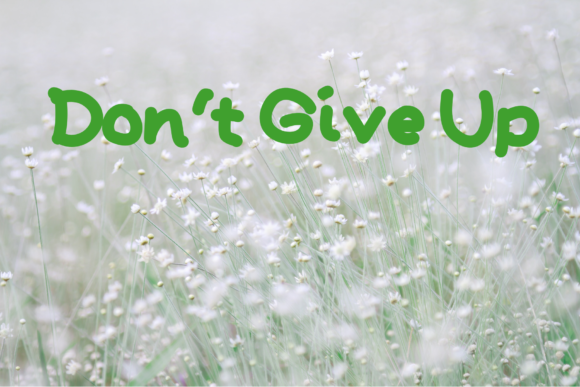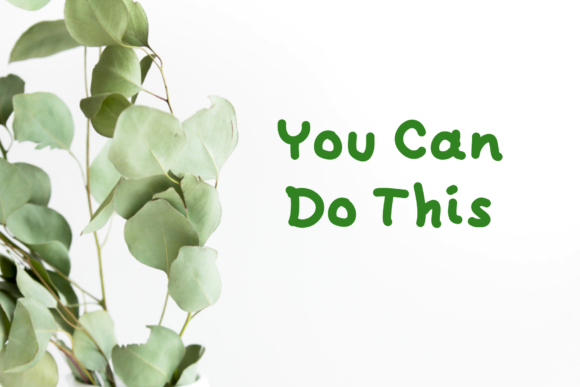
Introduction to Rabbity Font
Do you ever find yourself scrolling through design inspiration boards, and suddenly, a font catches your eye? That’s exactly what happened to me when I stumbled upon the Rabbity Font. Its adorable, chunky letters made me smile, and I couldn’t wait to see what kind of creative project I could create with it.
As a designer, I know how valuable a great font can be. It can elevate an entire design and make it stand out from the crowd. That’s why I’m excited to share this free download with you, perfect for any design project that needs a little extra personality. With its transparent background, the Rabbity Font is versatile and easy to use, making it a valuable resource for designers of all levels.
Whether you’re working on a branding project, creating social media graphics, or designing a website, the Rabbity Font is sure to bring a touch of whimsy and charm to your design. So, let’s dive in and explore the world of this adorable font, and discover just how much fun it can be to create with it!
Key Features of Rabbity Font
- Rabbity Font is a free download, making it an ideal design resource for creative projects.
- This high-quality font features a unique, whimsical design with transparent background, allowing for seamless layering and customization.
- The font includes a range of characters, including uppercase and lowercase letters, numbers, and punctuation marks, making it suitable for a variety of creative applications.
- This font is ideal for use in digital design, including web design, graphic design, and digital publishing, due to its high-quality, scalable design.
- Rabbity Font is a unique and creative design resource that can add a touch of personality to any project, making it a valuable asset for designers and artists.
Honest Review: Rabbity Font
As a designer, I’m always on the lookout for high-quality design resources to elevate my creative projects. The Rabbity Font has caught my attention, and I’m excited to share my honest review.
- ✨ The Rabbity Font is a beautiful, hand-drawn font that adds a touch of whimsy to any design. Its unique style and flair make it perfect for creative projects that require a personal touch.
- ✨ The Rabbity Font has a transparent background, making it easy to use in a variety of design contexts, from print to digital projects.
- ⚠️ The font may not be suitable for professional or corporate designs, as its hand-drawn style may not be taken seriously in a formal setting.
- ⚠️ The Rabbity Font is not as versatile as some other fonts, and may not be the best choice for projects that require a wide range of font styles.
Overall, I’m impressed with the Rabbity Font, and I think it’s a great addition to any designer’s toolkit. Its unique style and free availability make it a must-try for creative projects. Just be mindful of its limitations, and use it wisely in your designs.
Rabbity Font is ideal for creative projects such as branding, logos, and graphics. Its high quality design makes it perfect for use in various design fields, including graphic design, digital design, and print design.
Tips for Getting the Most Out of Rabbity Font
For the best results, use Rabbity Font with a transparent background to create a more creative and eye-catching design. Experiment with different font sizes and colors to add depth and visual interest to your design.